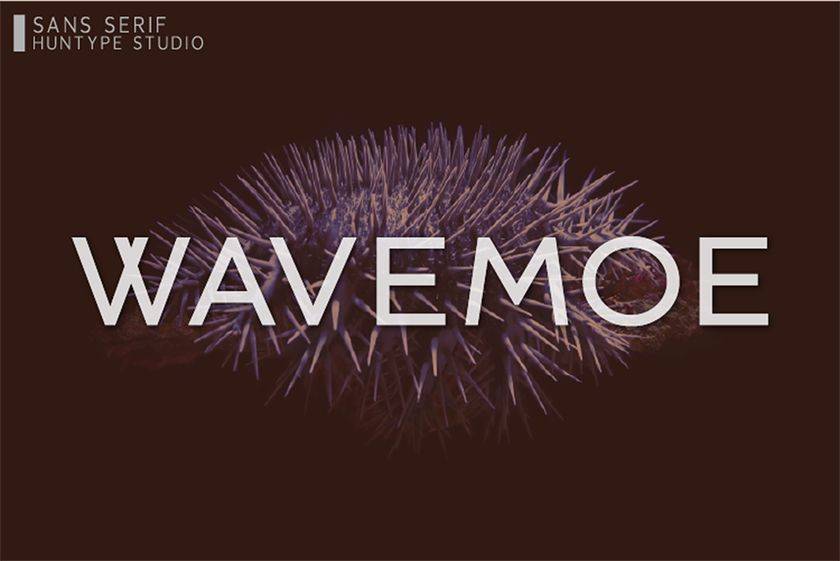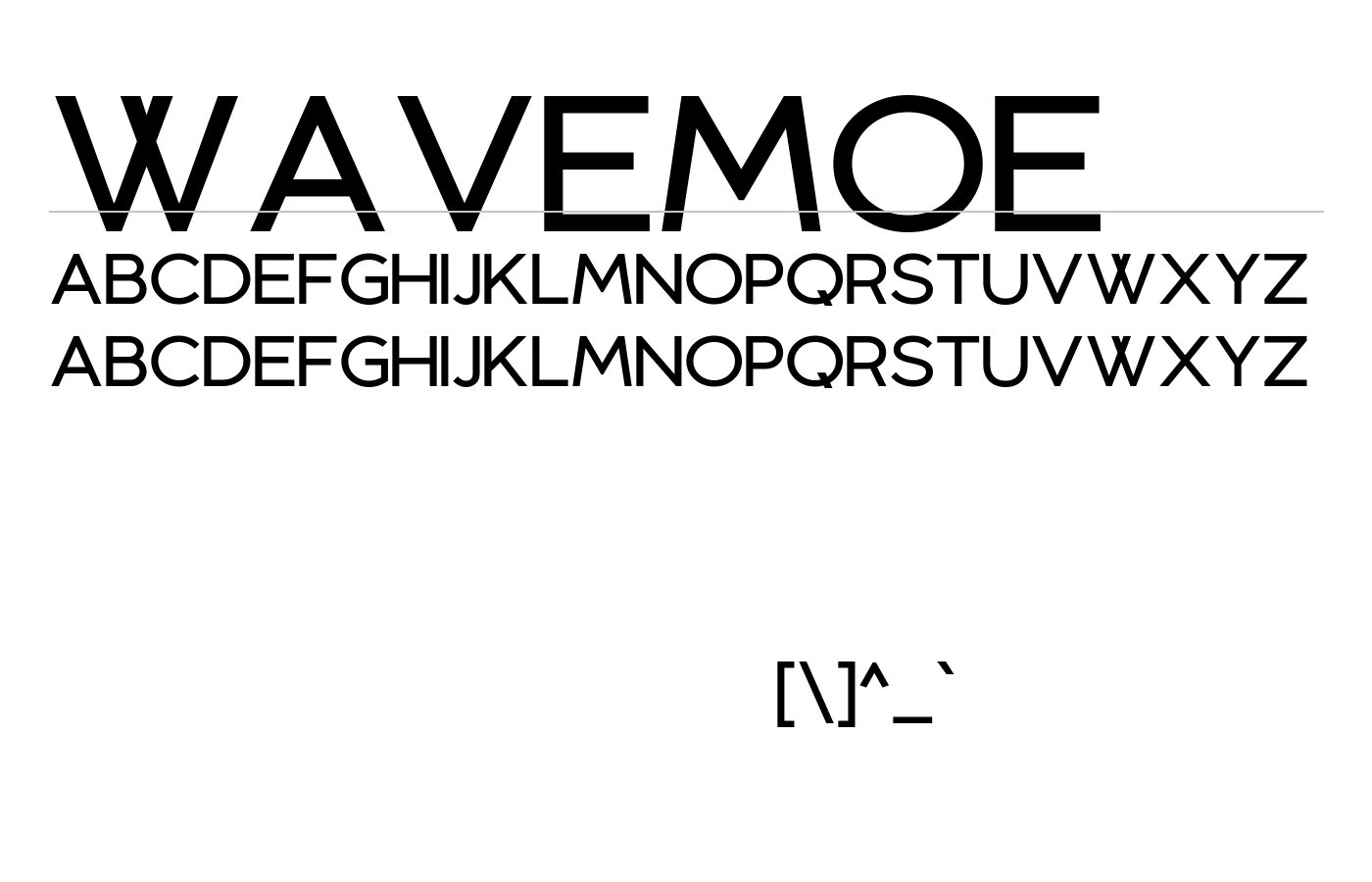
Wavemoe is a sleek sans serif font characterized by its clean, geometric letterforms and a modern, minimalist style. With a regular weight and balanced proportions, it offers excellent readability and a sophisticated, professional feel, making it ideal for branding, editorial headlines, and contemporary web design where clarity and elegance are key. This font’s simplicity and refined structure lend it versatility and a confident, up-to-date personality.
Wavemoe Font